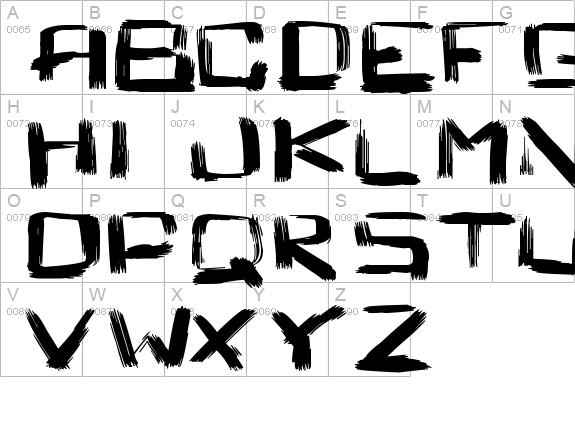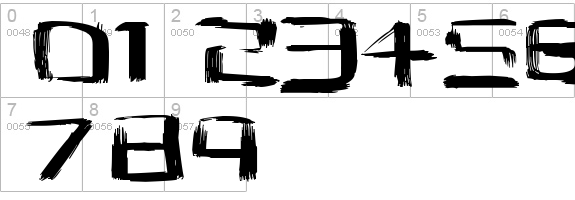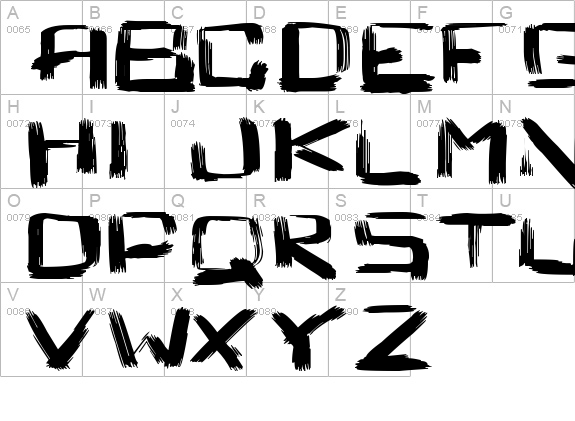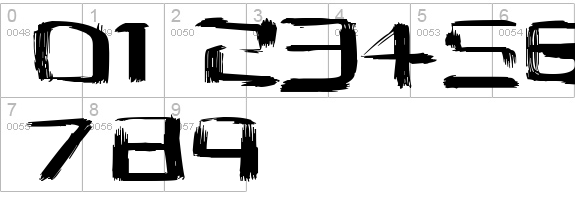
Square Brush Font Details
Square Brush is a free for personal use font in the Script > Brush category, designed by Darrell Flood. It has been downloaded 124 times and is available for Windows, Mac and Linux.
The Square Brush font is a modern and stylish typeface that exudes a sense of creativity and uniqueness. Its bold and angular design makes it perfect for adding a contemporary touch to your projects. This versatile font is ideal for a variety of design applications, from logos and branding to posters and social media graphics.